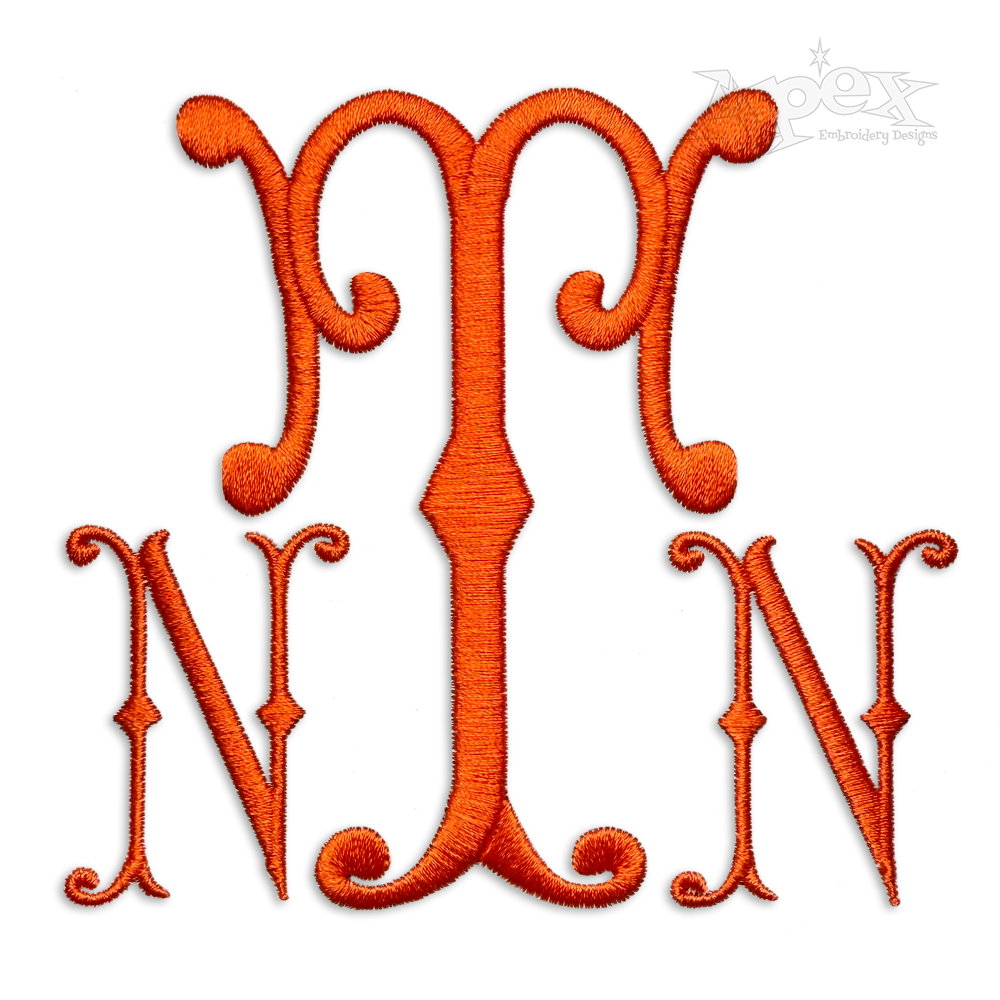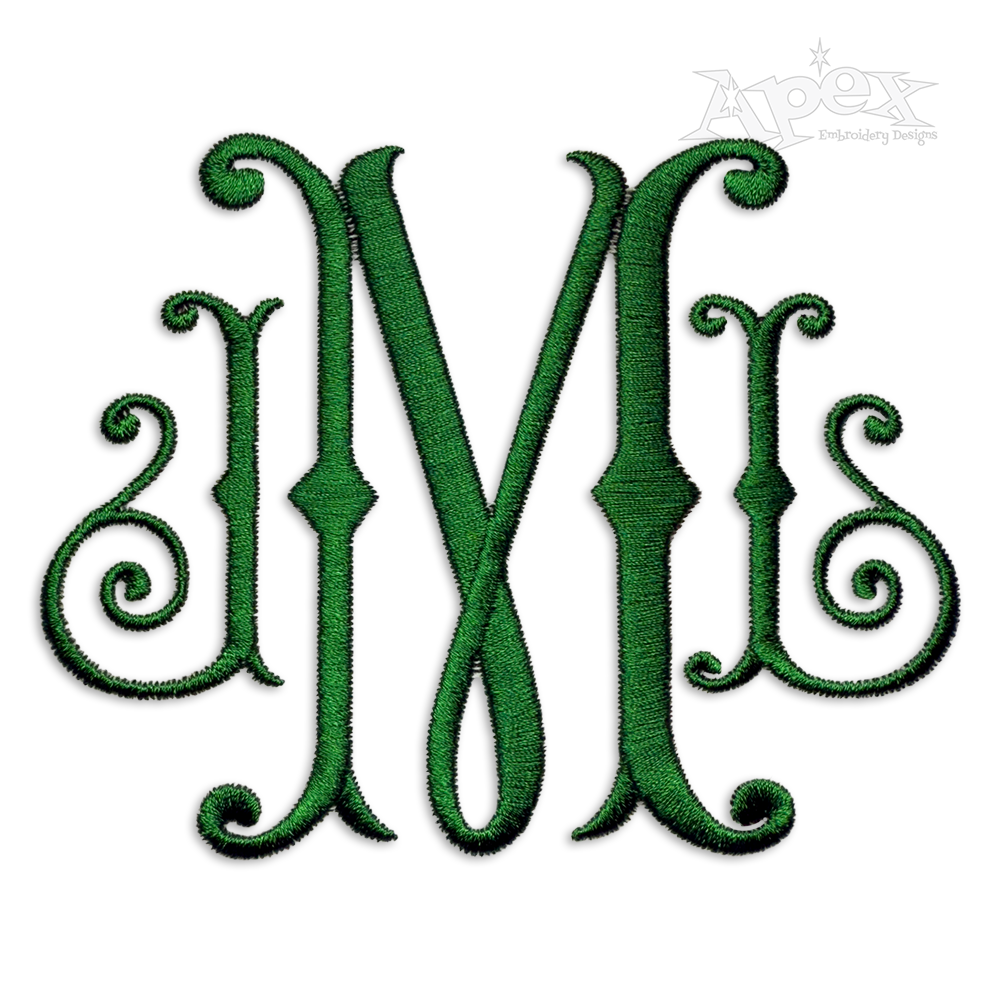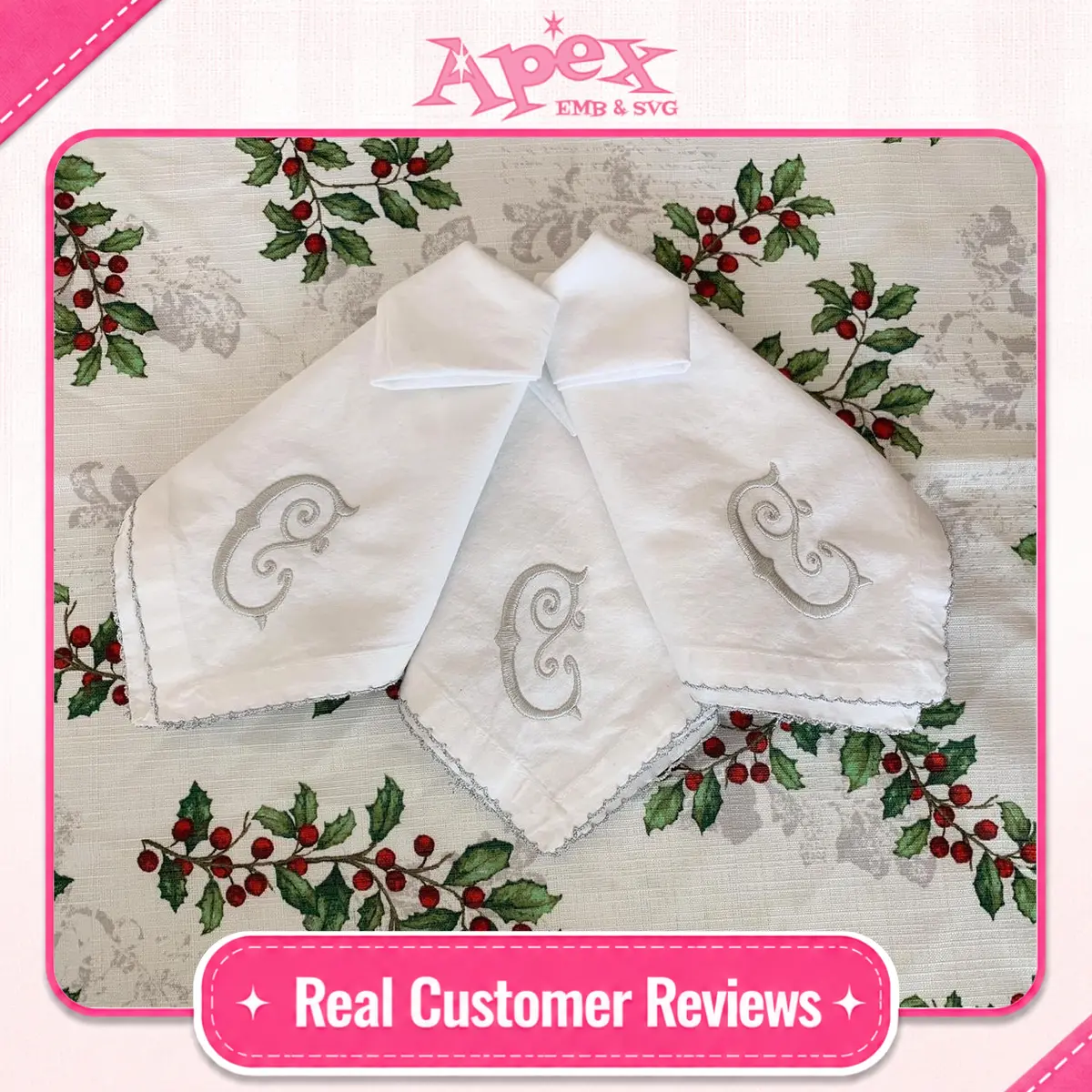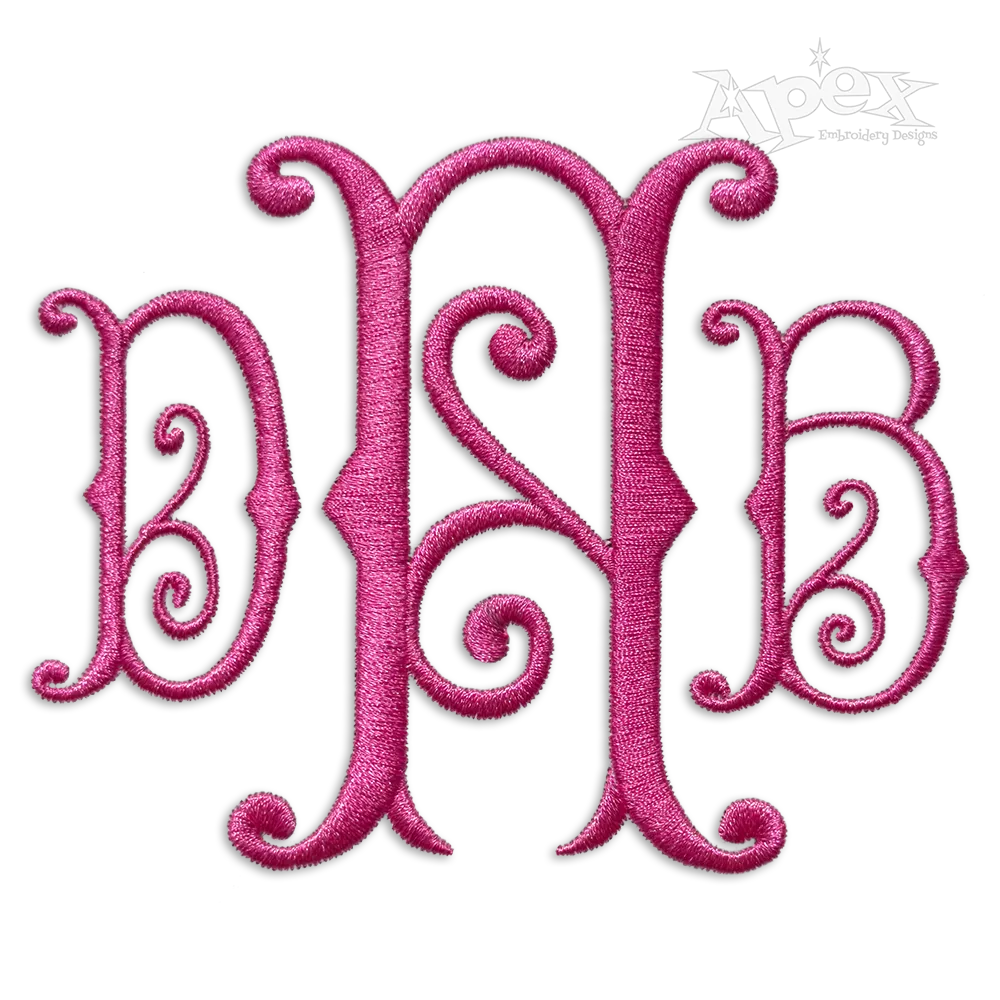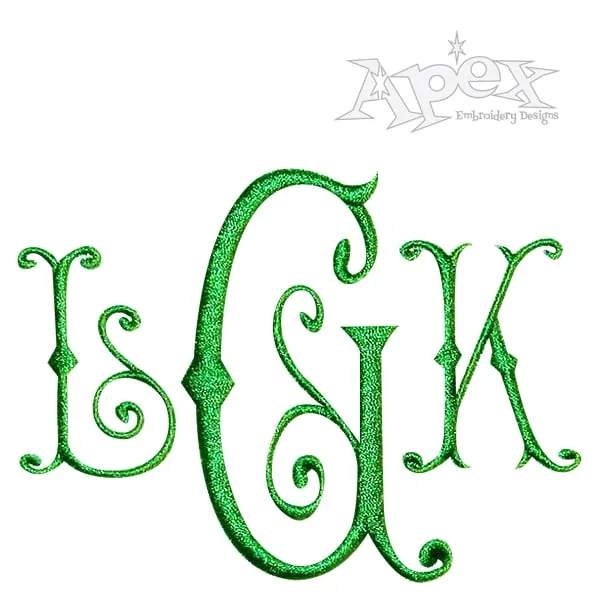
Romance Monogram Embroidery Font
Evoking the quiet grandeur of European ch?teaux and the treasured needlework of vintage bridal trousseaus, the Romance Monogram embroidery font transforms modern stitching into heirloom art. Inspired by classic nineteenth-century French calligraphy and architectural ironwork, each letterform swirls with poetic grace and theatrical drama. As digitizers, our ambition was to capture the organic, fluid movement of a calligrapher?s quill dipping into velvet ink, balancing delicate, sweeping tendrils with confident, structural swells that catch the light across your favorite fabrics.
Digitized with meticulous precision, this 3-letter monogram collection features dedicated Left, Center, and Right characters designed to interlock effortlessly into a balanced crest. To accommodate projects ranging from petite personal accessories to commanding home textiles, five proportional sizes are included:
Project Ideas for Romance Monogram
The ornate European cadence of the Romance Monogram lends itself to bespoke, high-end applications where elegance is paramount:
- Heirloom Bridal Robes & Accessories: Embellish pure silk dressing gowns, ring bearer pillows, and bridal party keepsakes with shimmering tonal threads.
- Luxury Table Linens: Elevate hemstitched linen cocktail napkins, dinner runners, and placemats for romantic weddings, anniversary dinners, or lavish tablescapes.
- Master Suite Bedding: Create stately focal points on crisp percale duvet covers, bolster pillows, and monogrammed European pillow shams.
- Bespoke Resort Wear: Stitch understated single or three-letter crests onto breezy linen shirts, resort tunics, and poolside canvas totes.
- Personalized Gifting: Craft unforgettable personalized gifts, from velvet travel jewelry cases and plush cosmetic bags to monogrammed cashmere throw blankets.
Achieving a balanced presentation depends on complementary placement that honors the curving geometry of the monogram:
- Napkin Diagonal Corner: Position the bottom edge of the monogram 1.5 to 2 inches inward from the corner hemstitch at a true 45-degree angle for an exquisite, draped presentation when folded.
- Center Pillow Accent: When embroidering shams or decorative pillows, center the three-letter composition precisely on the fabric panel, using the larger 3.0" or 3.5" sizes to command attention without overcrowding border flange details.
- Cuff & Hemline Accents: For apparel and luxury loungewear, stitch the 1.5-inch size angled parallel to the sleeve cuff edge or positioned subtly at the lower hem of a tailored shirt.
- Towel & Throw Bands: Place the monogram 2 to 3 inches above the lower decorative woven dobby band or fringe on guest towels and bath sheets for an authentic boutique aesthetic.
Romance Monogram Craft & Letterform Details
The beauty of the Romance Monogram lies within its artisan stitch planning. Rather than flat, mechanical lettering, every flourish in this satin stitch alphabet is digitized with variable stitch angles that follow the natural sweep of hand-drawn script. We engineered progressive densities and specialized micro-underlay beneath every sweeping scroll, giving each petal-like serif a gently sculpted, three-dimensional lift without creating rigid, stiff stitch fields.
The outer flanking initials (Left and Right) are contoured with gentle, curving flourishes that cradle the grander, elevated Center initial. This spatial harmony ensures that complex letter combinations nestle seamlessly against one another, eliminating awkward gaps. From the dramatic looping descenders to the whisper-thin hairline connections, the Romance Monogram stitches cleanly and smoothly, delivering an unmistakable touch of old-world European aristocracy to your bespoke embroidery repertoire.